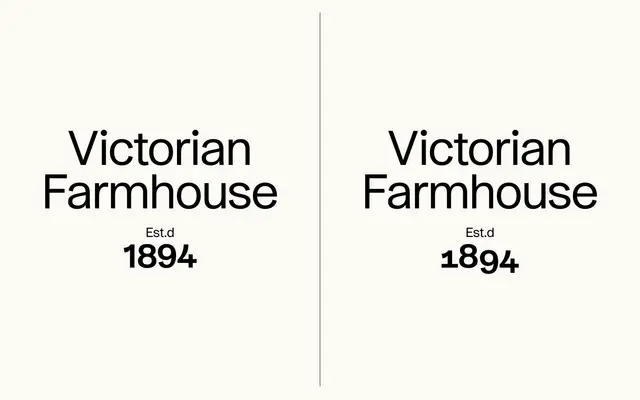
Atelier Sans
A geo-grotesque from Archive Foundry's Sam Powell that leans into playful glyph forms while retaining enough restraint for broad typographic use.
Released in October 2024, Atelier Sans runs across six weights from Light to Bold, balancing expressive details with the structural clarity expected of a grotesque. The foundry describes it as sitting between expressive and simpler forms, making it suited to a wide range of applications. Italic and monospaced variants are noted as in development, suggesting the family is still maturing.
The foundry classifies it as geo-grotesque, combining geometric construction with the informal irregularities of a grotesque, giving it a playful character distinct from pure geometric sans families.